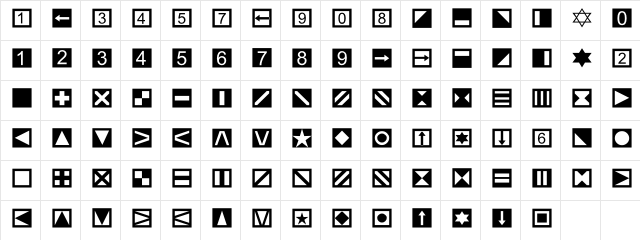
LinotypeTapestry-Quadrate Regular
Design Context for LinotypeTapestry-Quadrate Typeface
LinotypeTapestry-Quadrate is a composed and adaptable typeface that performs quietly and consistently across a wide range of design contexts.
Pro Tip: Use LinotypeTapestry-Quadrate in both headline and body roles to test its range before committing to a single application.